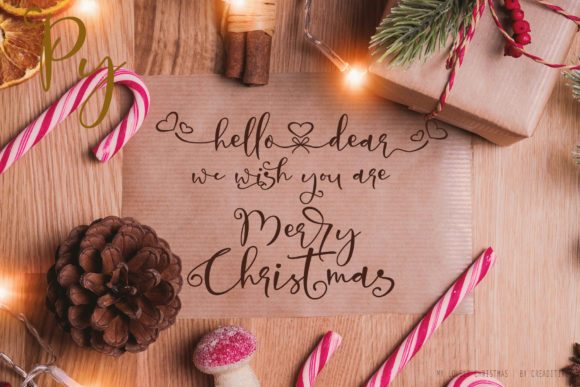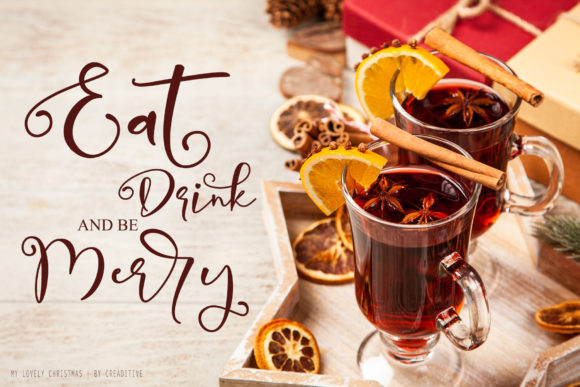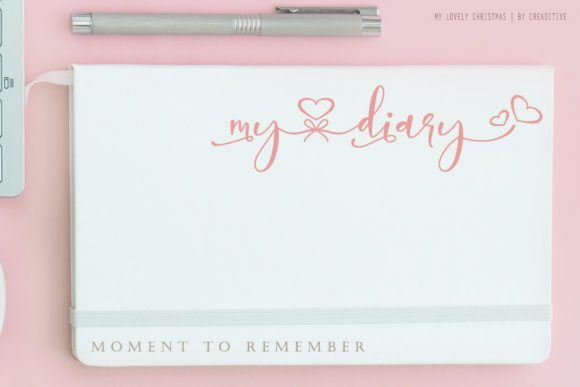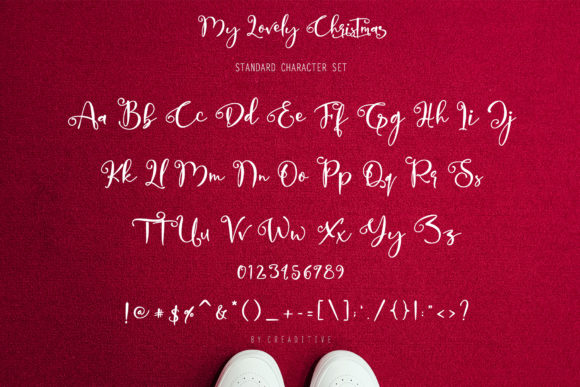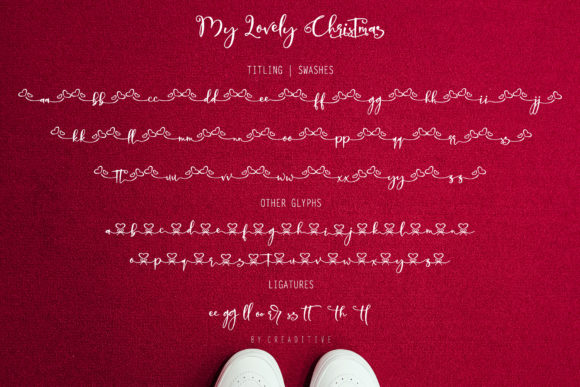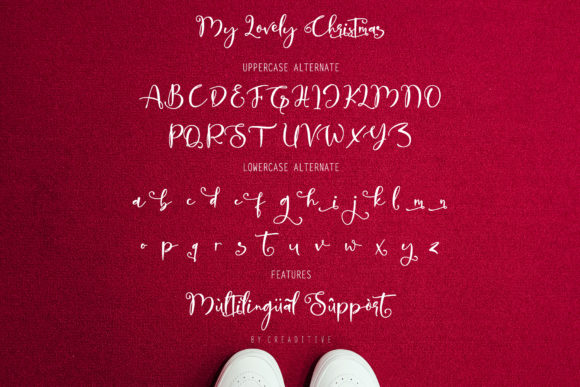
My Lovely Christmas Font
About My Lovely Christmas Font
My Lovely Christmas is a beautiful and romantic handwritten font. It is ideal for holiday-themed greeting cards and for any crafting project that requires a romantic touch.